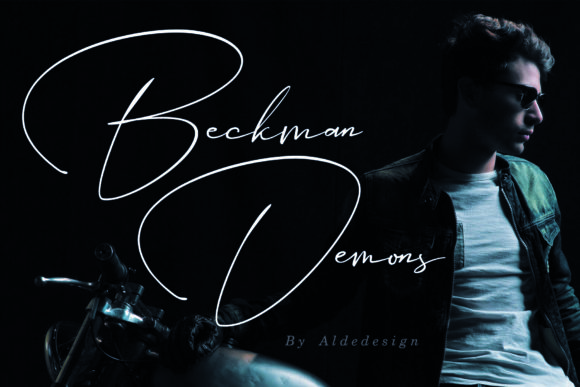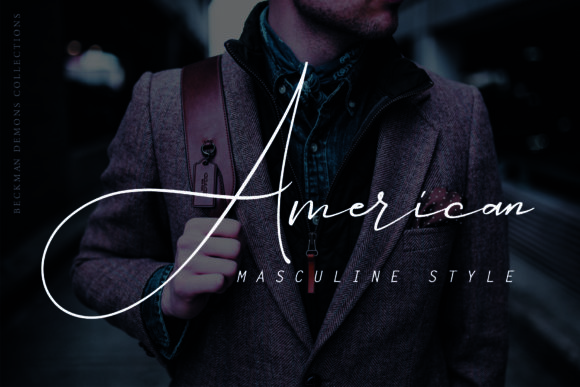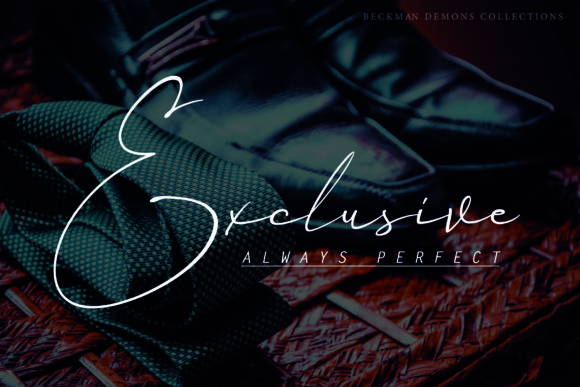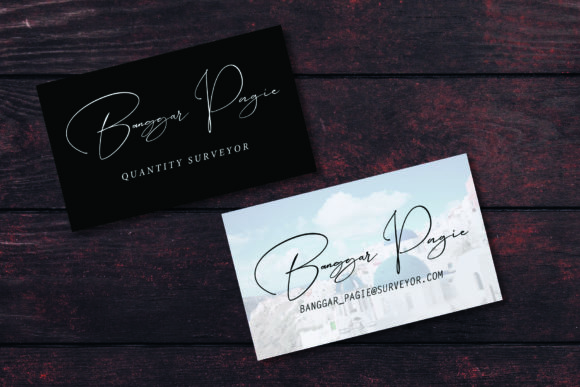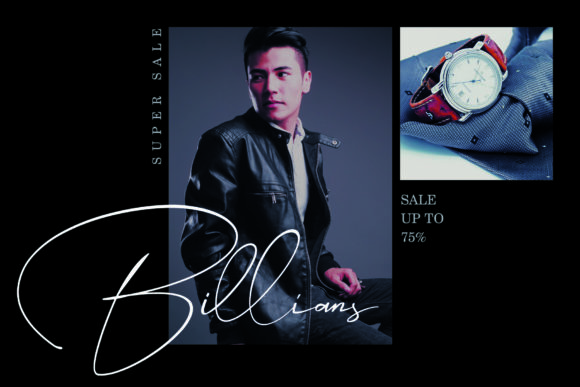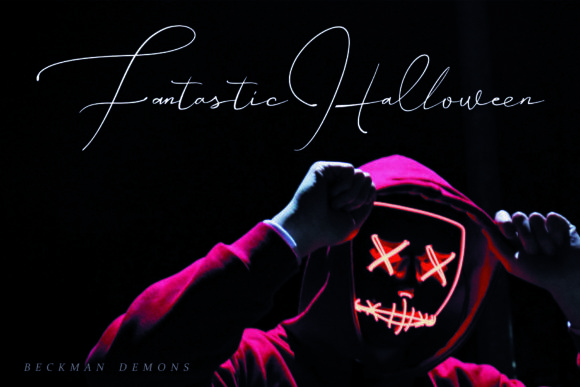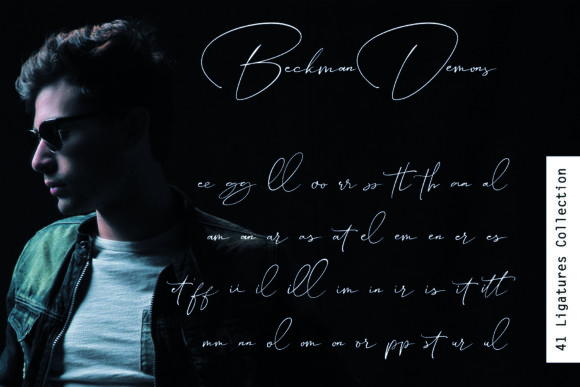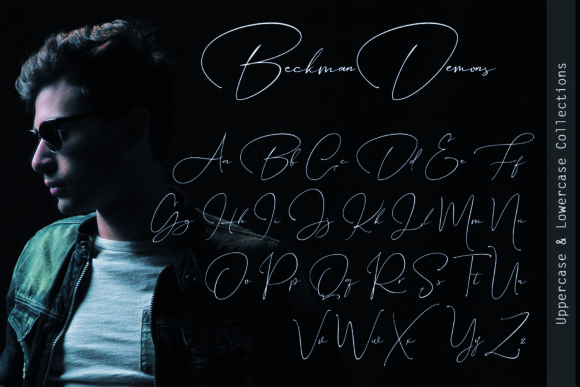
Beckman Demons Font
About Beckman Demons Font
The Beckman Demons is a stylish signature font that was inspired by modern photography.
Create a stunning watermark for your photos, invitations, or branding designs.